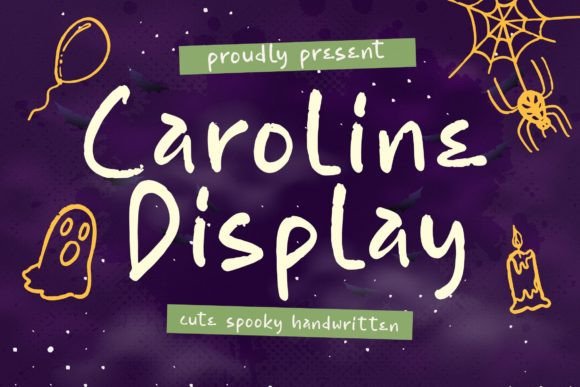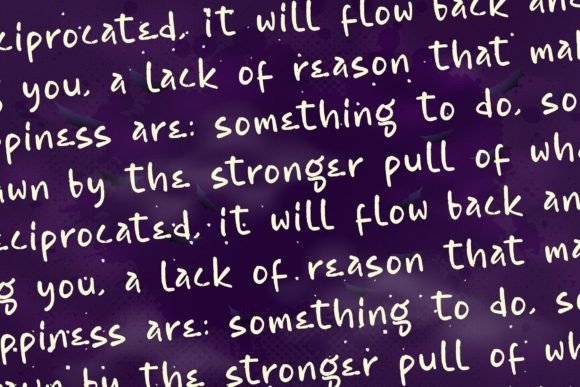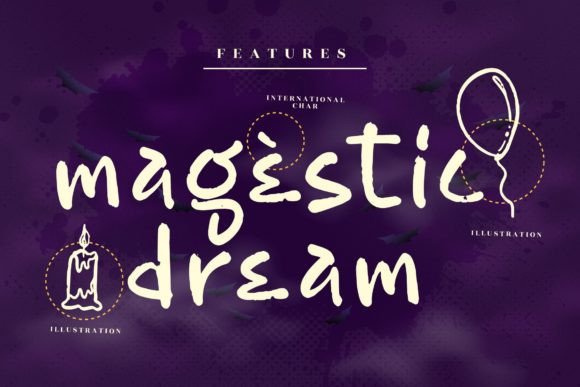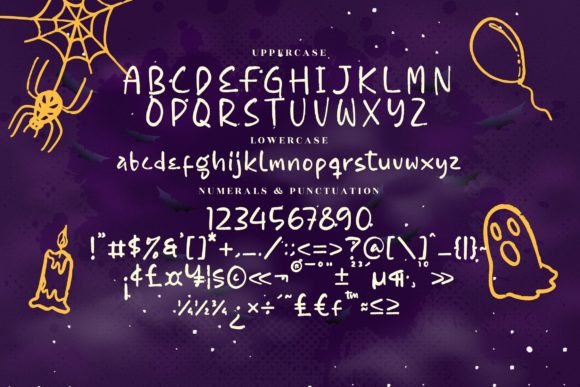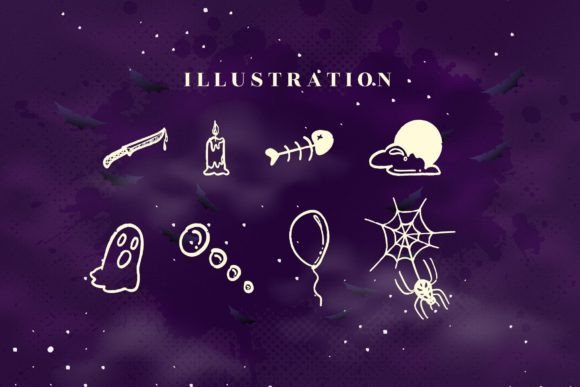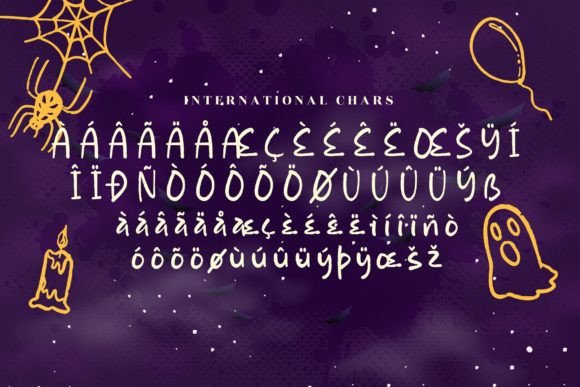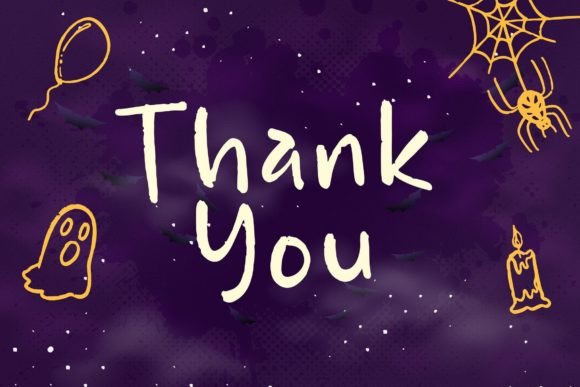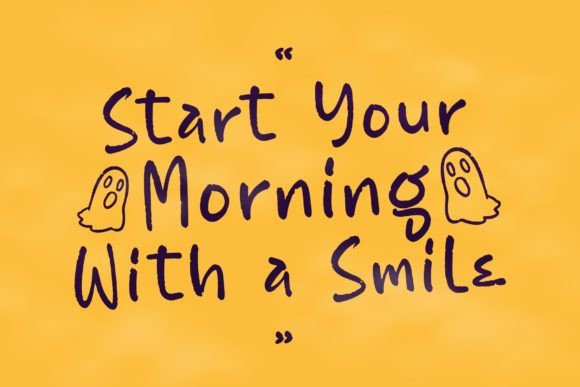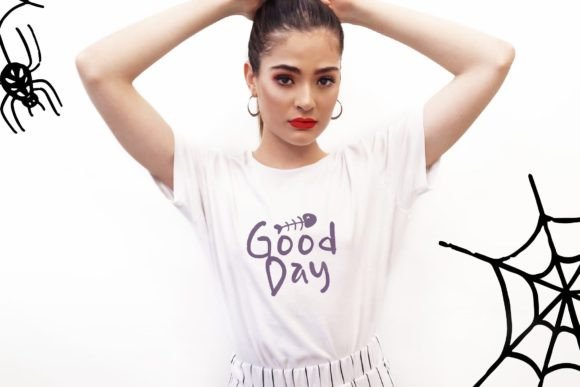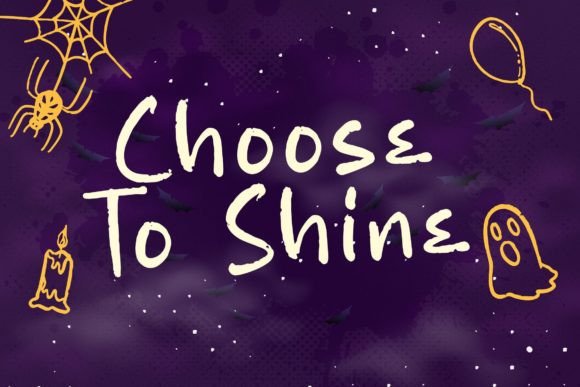
Caroline Display Font
About Caroline Display Font
Caroline Display is a playful and spooky handwritten font that adds a touch of whimsy and quirkiness to your Halloween designs. Its fun and spooky vibe make it a perfect choice for adding a festive and eerie atmosphere to your projects related to Halloween and other spooky occasions.
The font’s playful and irregular letterforms create a sense of spookiness and fun, making it ideal for Halloween-themed posters, party invitations, greeting cards, banners, and any other designs that need a spooky touch. Caroline Display’s unique charm and playful nature enhance the overall Halloween vibe, making your designs visually engaging and memorable.
With its spooky and fun appeal, Caroline Display adds a sense of excitement and creativity to your Halloween projects. Its handwritten style captures the essence of Halloween, allowing you to create designs that stand out with a touch of festive charm.
Incorporating Caroline Display into your Halloween designs enables you to infuse a playful and spooky atmosphere, making your projects more captivating and enjoyable. Whether you’re creating spooky party invitations or designing Halloween-themed merchandise, Caroline Display’s fun and quirky handwritten font will add a delightful and charming touch to your creations.
Embrace the playful and spooky nature of Caroline Display, and let it enhance your Halloween designs with its whimsical charm. Confidently add this font to your projects, and you’ll love the creative and festive results it brings to your Halloween-themed materials.